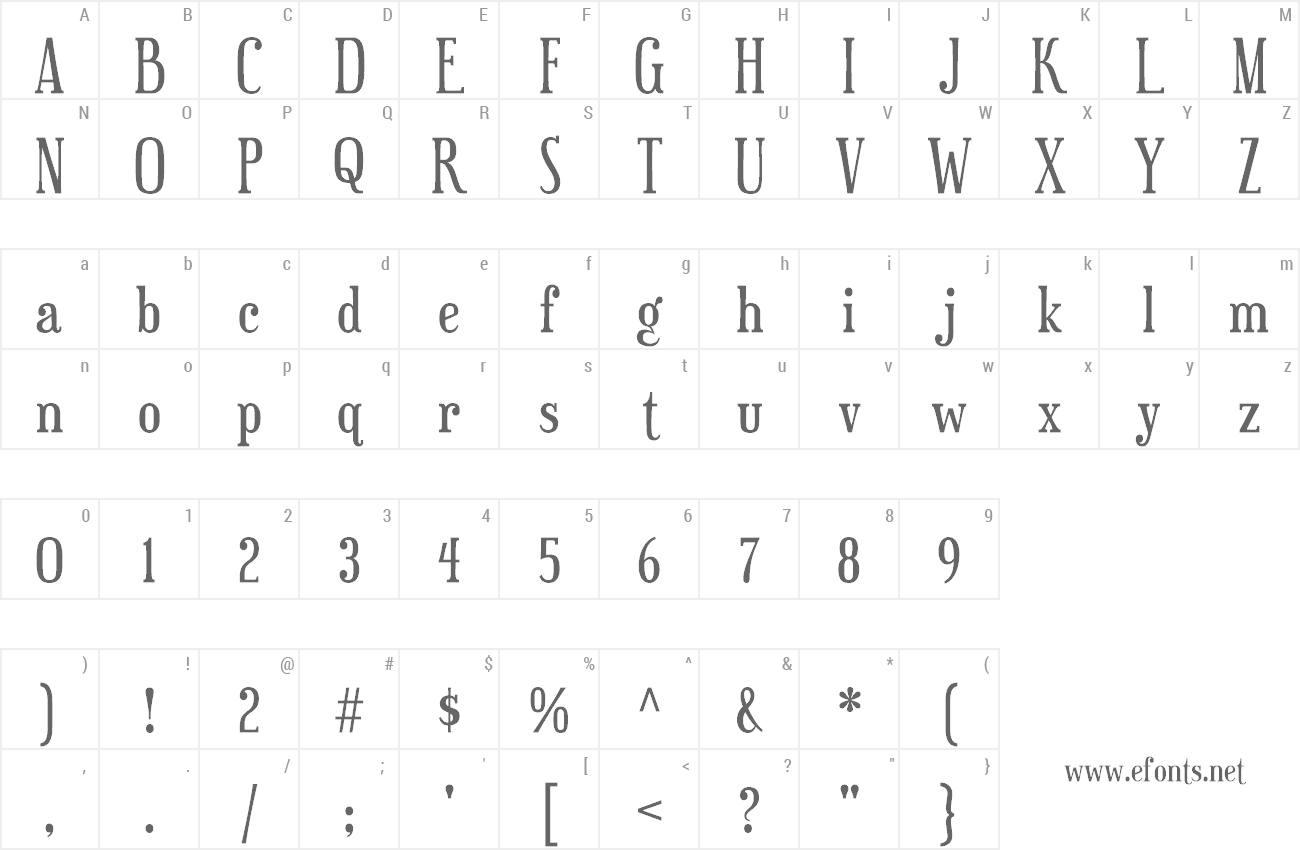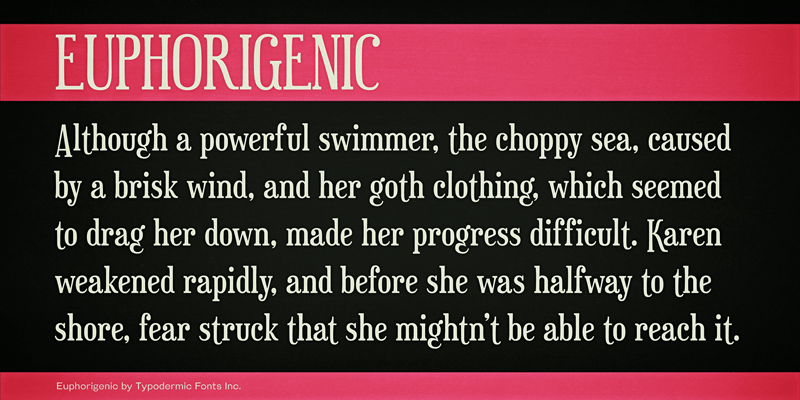
Euphorigenic is a playful, slab-serif headline font created in 1999. The latest version is cleaner, has a more complete character set, better spacing, better kerning, more language coverage and is optimized for web-embedding. This font includes a license that allows free commercial use: sometimes referred to as a desktop license. This allows you to install the font on a computer and use it to create posters, web graphics, game graphics, t-shirts, videos, signs, logos and more. Read the license agreement for details. If you'd like to embed this font in an app, ebook, on the web or anything that's not covered by the desktop license agreement, visit the link below. You'll find distributors who offer different types of licenses or you can contact me for help. http://typodermicfonts.com/euphorigenic-font/ |